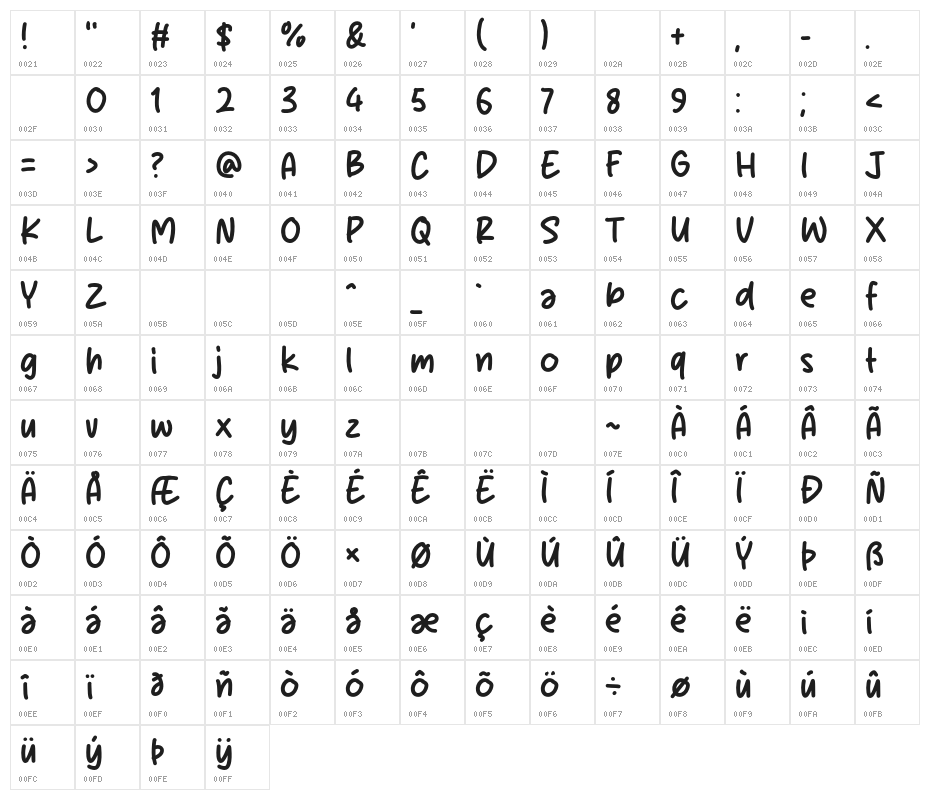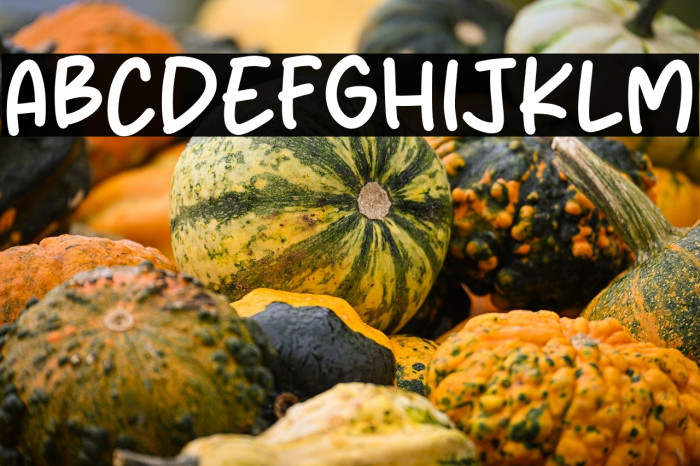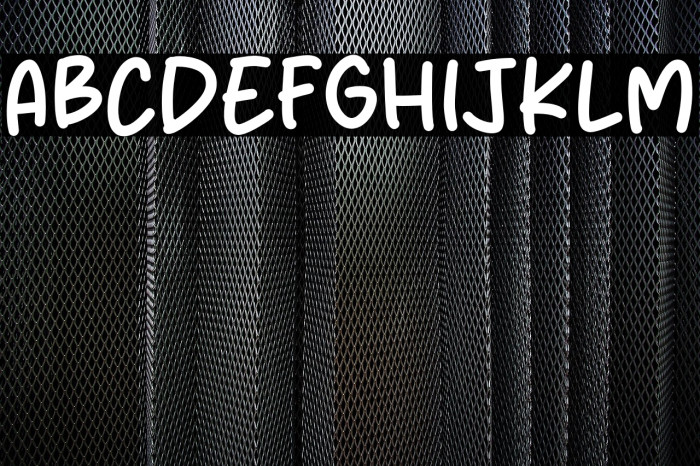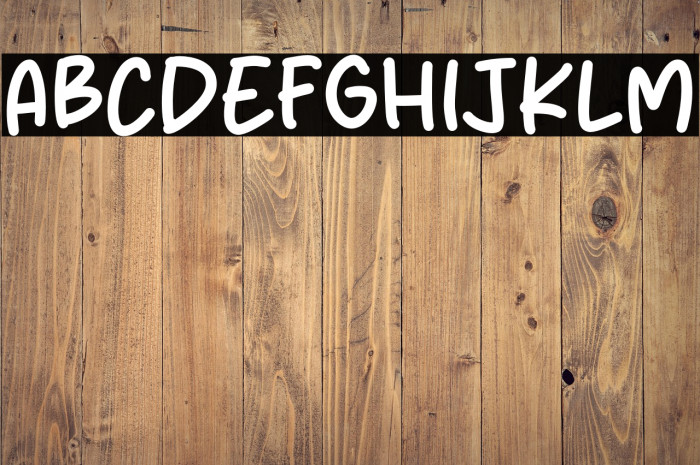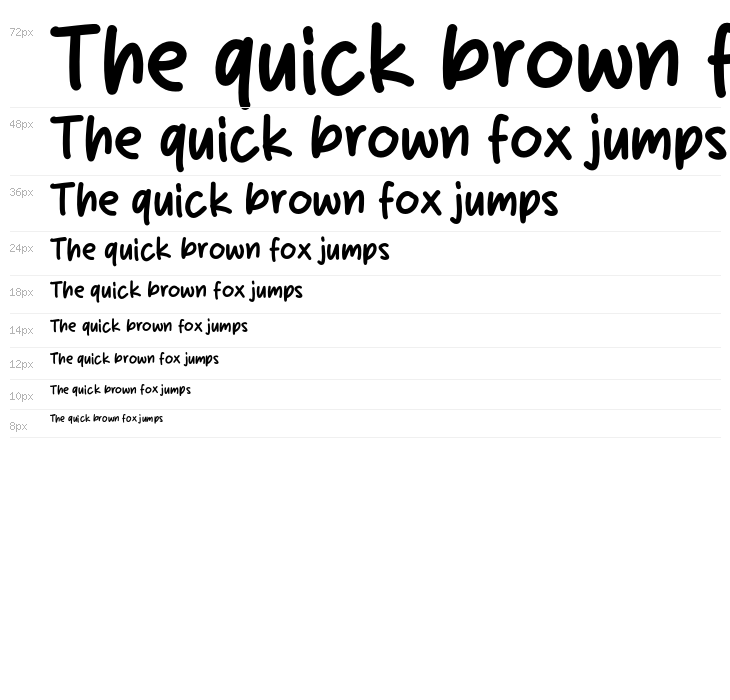
Bandal Skies Font
Bandal Skies Description
This font exhibits a playful and casual handwritten style, characterized by its rounded and smooth letterforms. The strokes are consistent in width, giving it a uniform appearance. The letters are slightly slanted, adding a dynamic and informal touch. The overall look is friendly and approachable, making it suitable for projects that require a personal or whimsical feel. The numerals and special characters maintain the same playful aesthetic, ensuring consistency across all text elements.
| Use Case | Logos, Headlines, Informal Text |
| Proposed Projects | Ideal for greeting cards, children's books, informal invitations, and playful branding. |